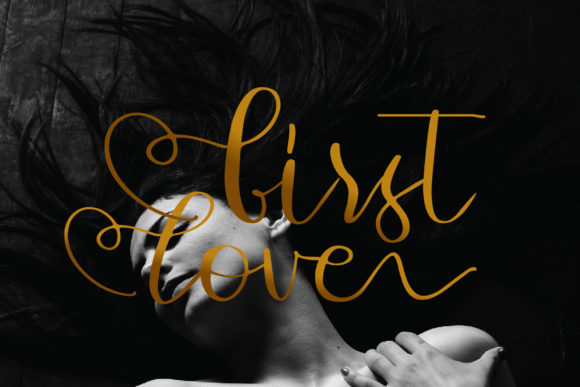
The Magic of Asya Font: A Designer’s Delight
An Honest Review of Asya Font
What I Love About Asya Font
- ✨ Elegant and sophisticated script style, perfect for titles, headlines, and logos
- ✅ Wide range of design possibilities, from formal to informal
- 💕 Romantic appeal that adds a touch of whimsy to any design
- 🎨 Highly versatile and can be used for various design projects, including posters, flyers, and social media graphics
While Asya Font is an amazing script font, there are a few things to keep in mind:
- 🤔 Limited use for body text, as it’s best suited for headlines and titles
- ⚠️ May not work well with very small font sizes, as some details may get lost
The Backstory of Asya Font
Asya Font was designed with the intention of creating a elegant and romantic script font that captures the essence of luxury and sophistication. The designer aimed to create a font that would be perfect for wedding designs, formal events, and high-end branding. With its beautiful letterforms and flowing connections, Asya Font has become a popular choice among designers and crafters.
| Font Name | Asya Font |
| What is Asya Font best suited for? | Asya Font is best suited for titles, headlines, logos, and other design projects that require an elegant and romantic touch. |
| Can I use Asya Font for body text? | While Asya Font can be used for body text, it’s not recommended, as it’s best suited for headlines and titles. |
| Is Asya Font available in different styles or weights? | Asya Font may be available in different styles or weights, depending on the font package or vendor. |